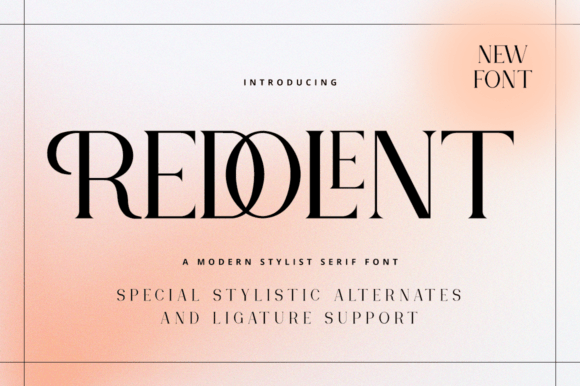
Introducing Redolent Font, the ultimate serif font for watermarking your projects with a touch of elegance and sophistication. Created by the talented team at RockboyStudio, this font family exudes a timeless quality that will take your designs to the next level.
With its thin and delicate lettering, Redolent Font strikes the perfect balance between classic calligraphy and modern design. Whether you're creating invitations, logos, or branding materials, this font will add a touch of refinement that your audience won't be able to resist.
Redolent Font is not just another font; it's a work of art. Its graceful curves and meticulous attention to detail make it the perfect choice for anyone looking to add a touch of luxury to their designs. From wedding invitations to corporate logos, this font is versatile and adaptable, making it an essential tool for any designer's toolbox.
So why choose Redolent Font? It's simple. This font will elevate your designs to new heights, capturing the attention of your audience and leaving a lasting impression. Its captivating beauty and emotional appeal will make your designs stand out, helping you to build a strong and recognizable brand.